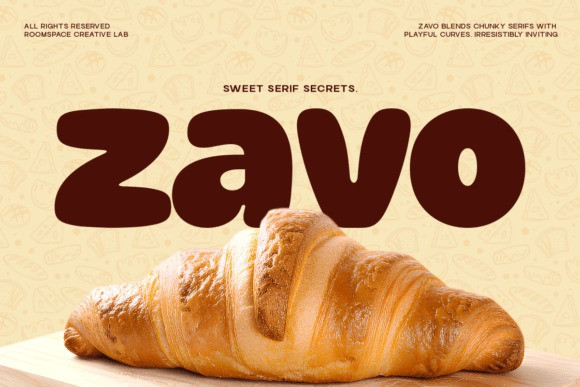
Zavo Sans Font a is hunky sans-serif display font created to feel fun, friendly, and full of energy. With its bold weight and rounded shapes, Zavo is perfect for brands that want to stand out while staying warm and approachable. From café branding to packaging and playful headlines, Zavo adds character without sacrificing readability.